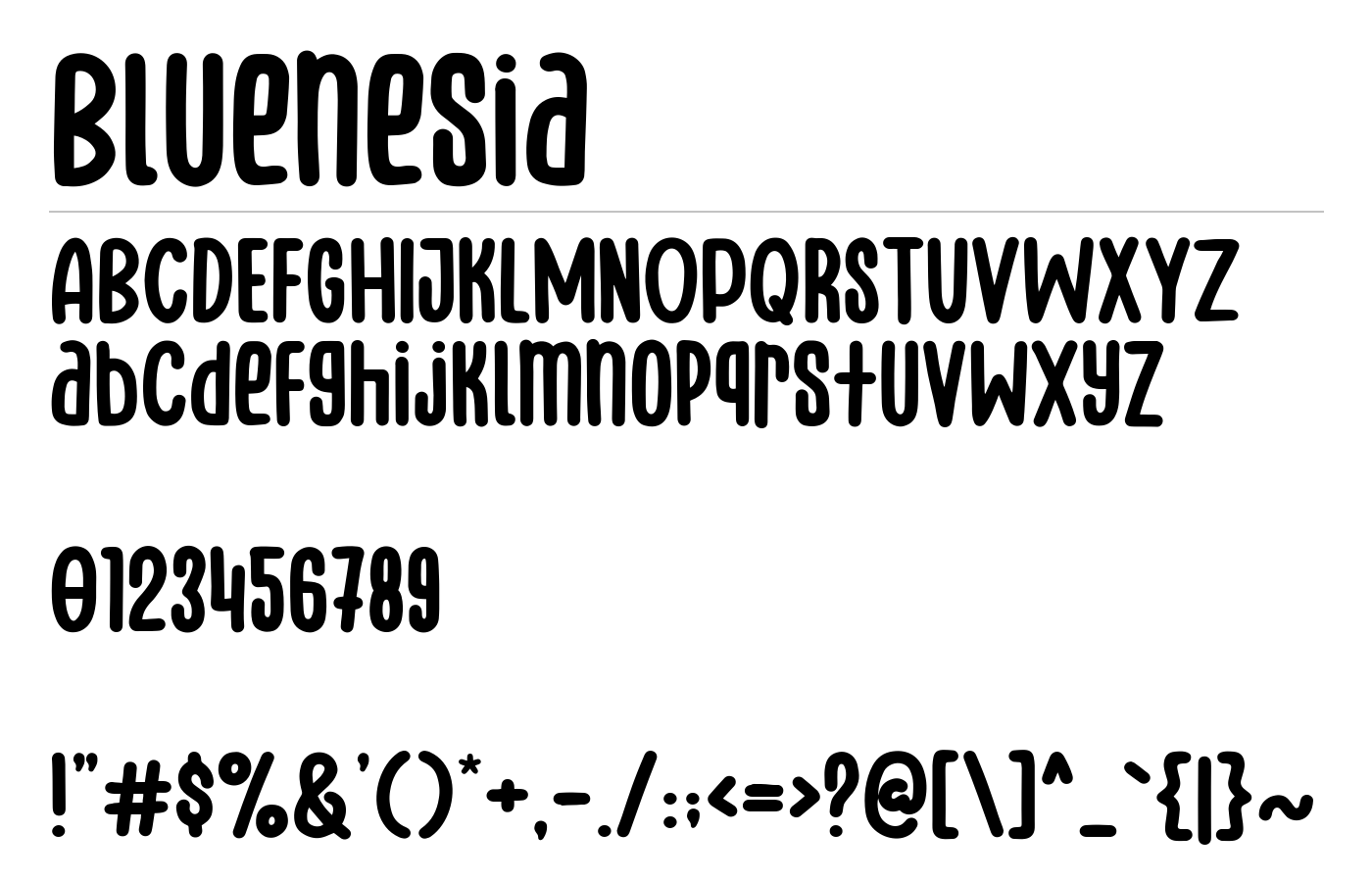
Bluenesia is a bold, playful sans serif font with a condensed width and rounded, slightly irregular forms that give it a friendly, hand-crafted feel. Its uniform stroke weight and tall x-height make it highly legible, ideal for eye-catching headlines, logos, and creative branding with a casual, approachable vibe. This font works well in designs that seek a fun yet clear expression, perfect for lifestyle brands, children's products, or informal editorial projects.
Bluenesia Font